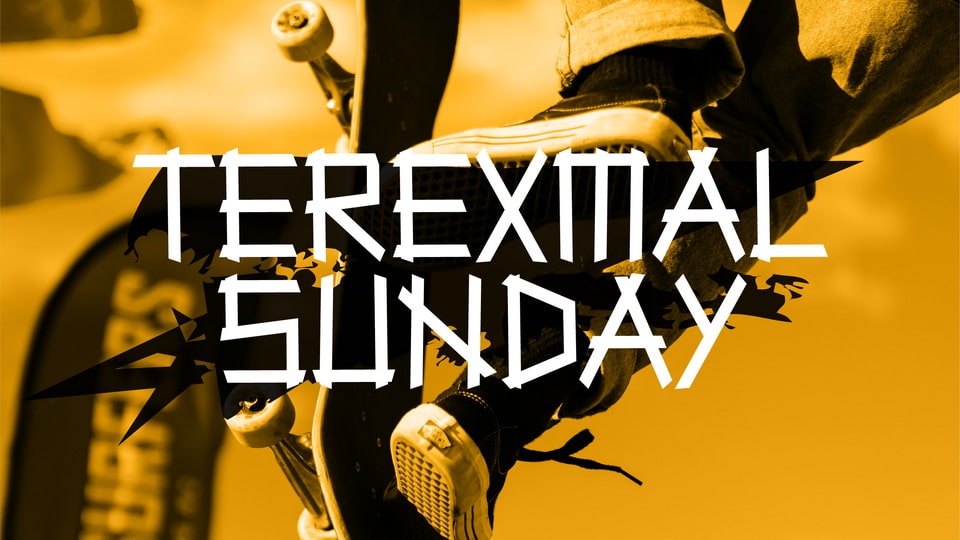
Download Terexmal Sunday font, a decorative typeface with an urban and modern style. With unique and wild characteristics Terexmal Sunday font still looks neat, suitable to make your design look more cool and attractive.